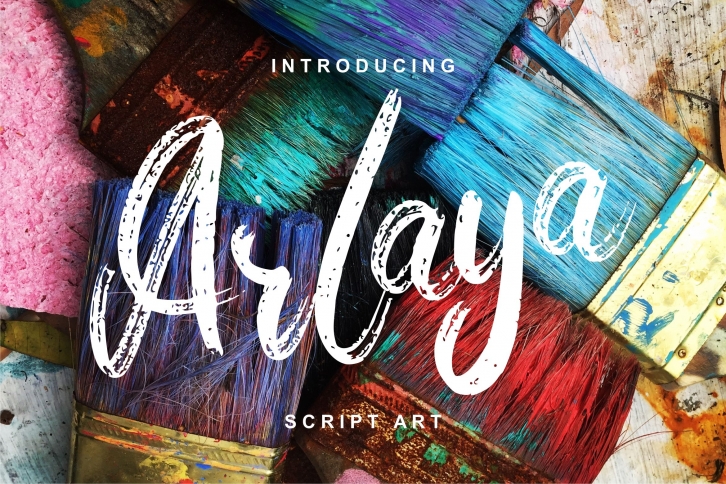
Arlaya is a beautiful font that was designed by Vunira. It's a great choice for designers and creatives who need such a font. It was released on December 12, 2019 and the file size is 17.39 MB. Arlaya may give a more youthful, expressive and casual look to your project. It is a very beautiful, refined, elegant, and high-quality font.